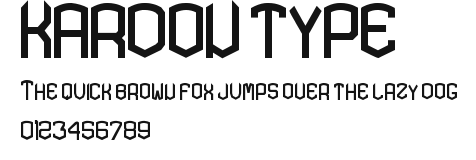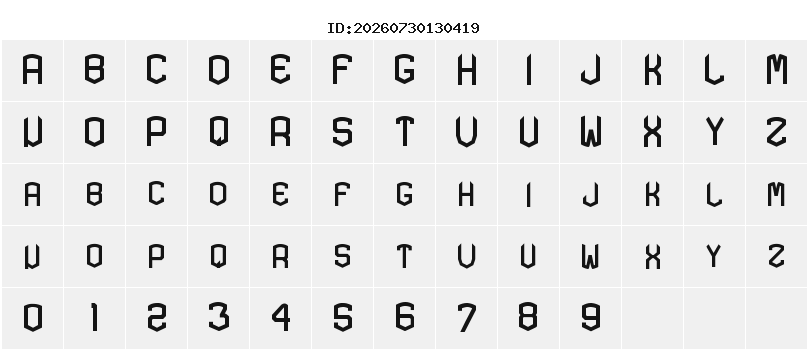
• Font Name: KARDON TYPE
• Manufacturer: MR.Frukta (Frolov Alexey)
About KARDON TYPE.ttf
KARDON TYPE.ttf is a modern, elegant sans-serif font designed for ultimate readability and visual harmony. Perfect for branding, headlines, web design, and print materials.